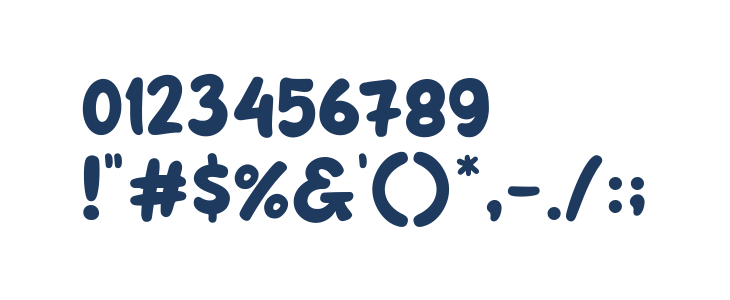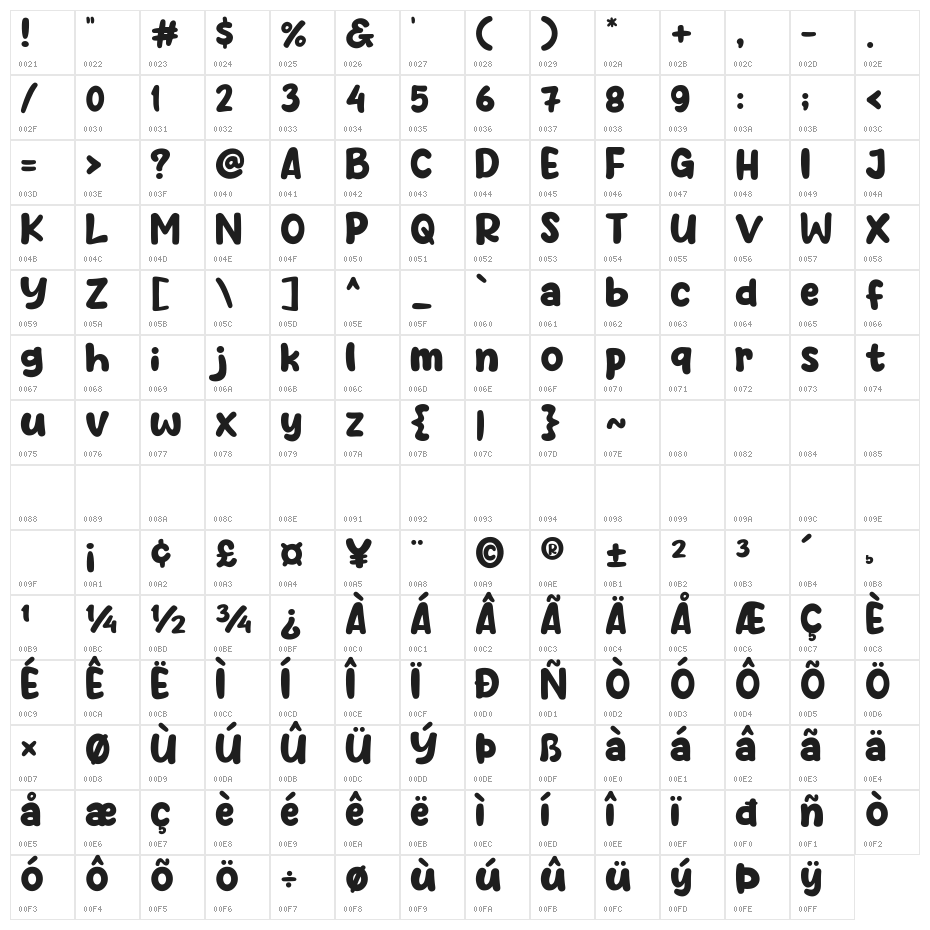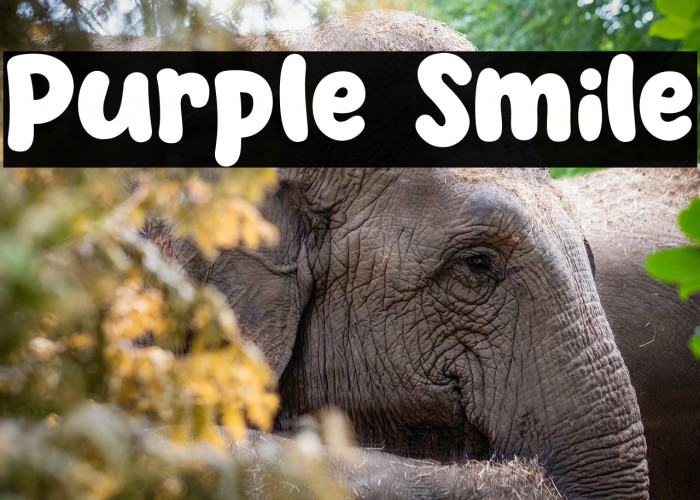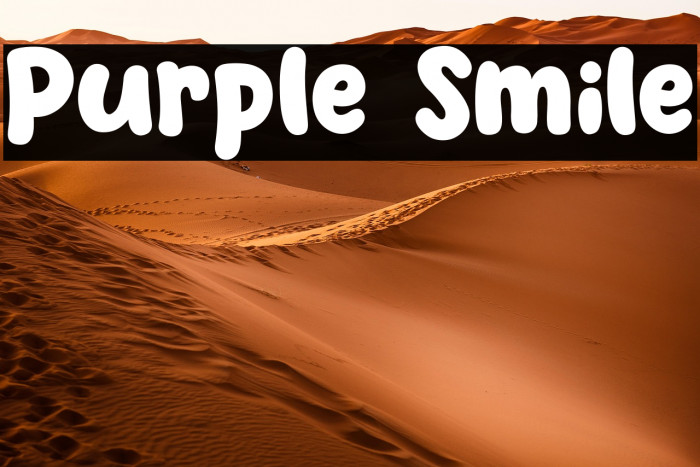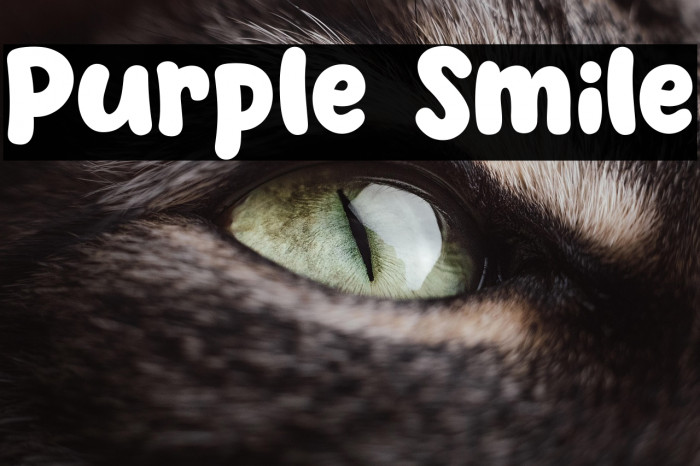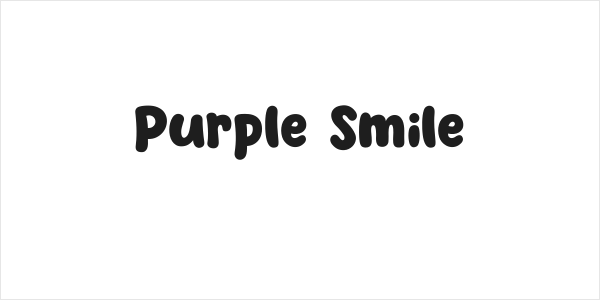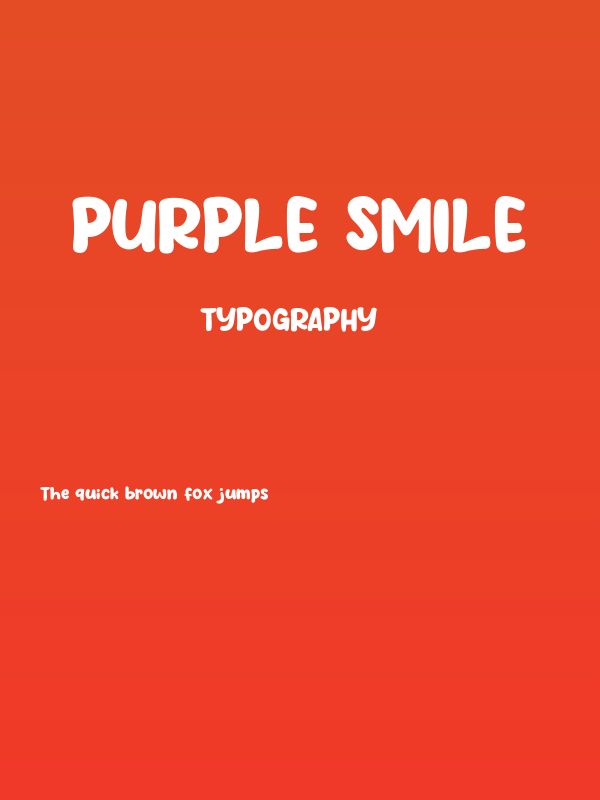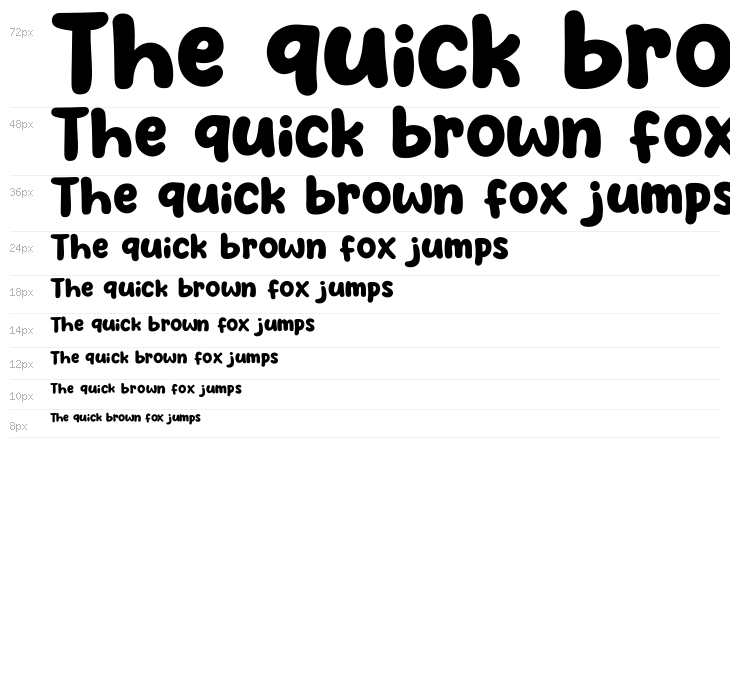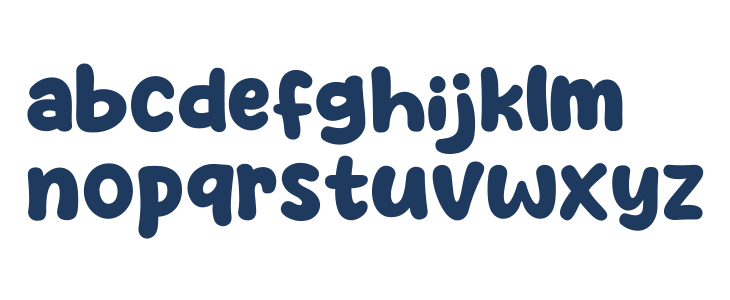
Purple Smile Font
Purple Smile Description
This playful and bold typeface features rounded, bubbly characters that exude a sense of fun and whimsy. The letters are thick and uniformly weighted, giving them a strong presence on the page. The rounded edges and smooth curves contribute to a friendly and approachable appearance, making it ideal for designs that aim to convey joy and creativity. The font includes a full set of uppercase and lowercase letters, numbers, and a variety of special characters, ensuring versatility in use. Its unique style makes it stand out, perfect for projects that require a touch of personality and charm.
Overall StylePlayful
Proposed ProjectsIdeal for children's books, playful branding, party invitations, and creative posters.